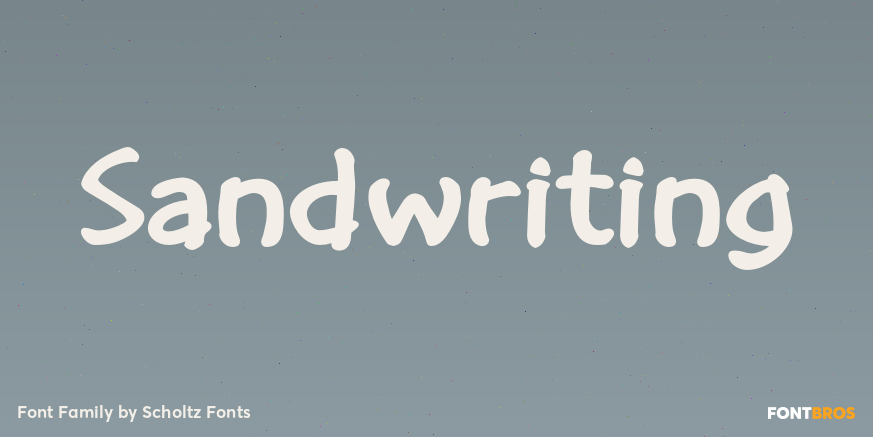
Sandwriting
About Sandwriting
One of my earliest memories of being able to write – an exciting skill – was of writing with my finger in the fine soft sea sand. I remember the freedom – I had no fear of making mistakes, of smudging ink or of doing anything wrong – and the ease with…